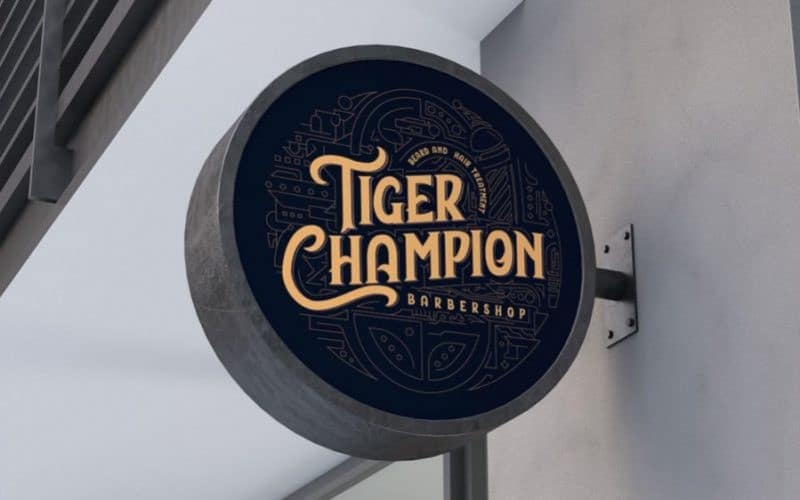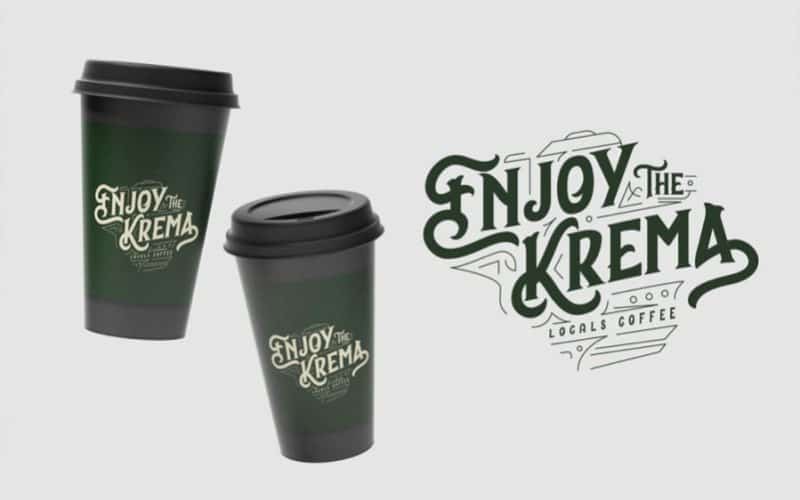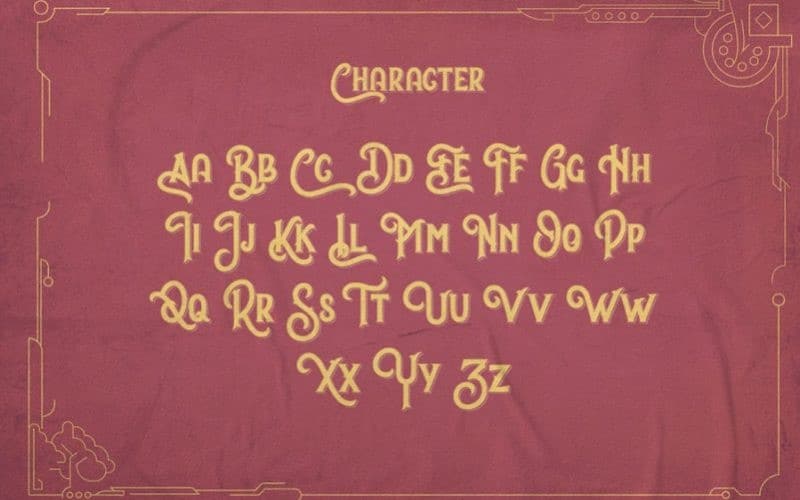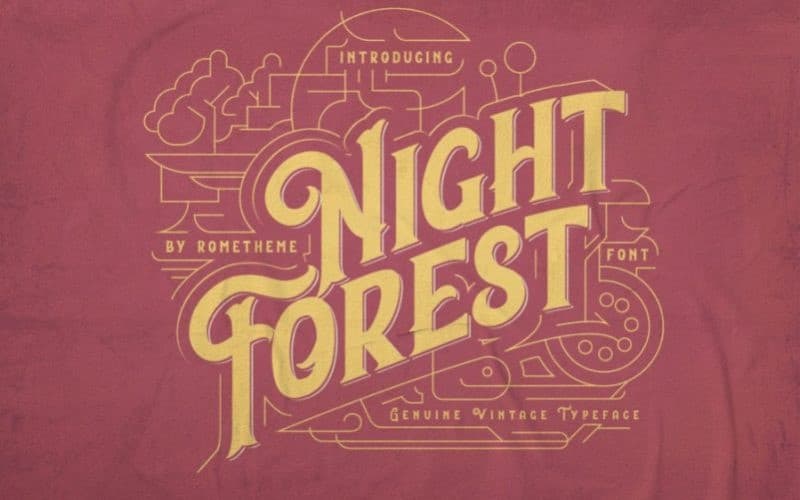
Night Forest Display Font
Night Forest Display Font with vintage taste can make your logotype become more interesting. Inspired by the decorative arts and architecture movement. This font looks modern, cute, fancy, readable, stylish, catchy and easy to use. It’s a great font for fashion, apparel projects, signature, album cover, logo, branding, magazine, social media, & advertisements, but also works great for other projects.